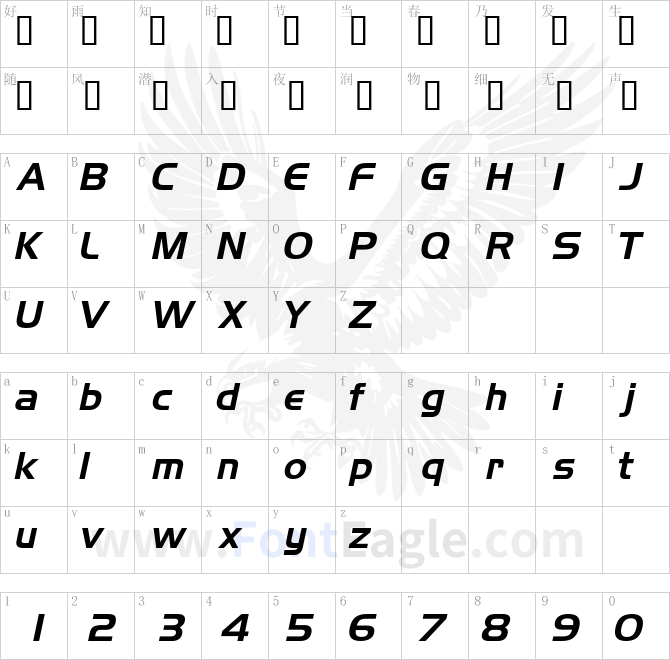
- Font name:Aero
Aero-Italic is a great font, widely used in graphic design, single-page menu design, poster design and other fields, and is deeply loved by designers.Aero-Italic download.